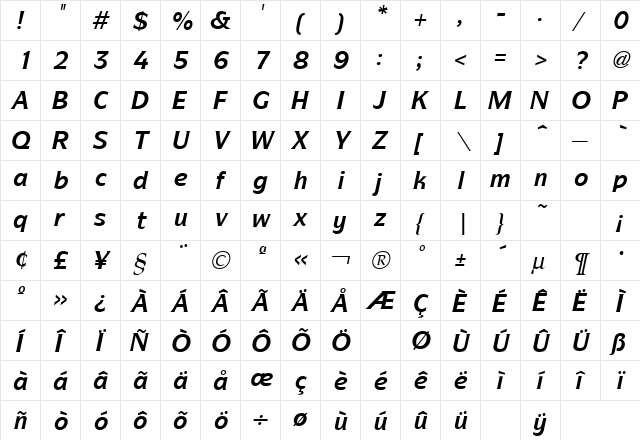
Symbol ITC Bold Italic
Design Context for Symbol ITC Typeface
Symbol ITC is a composed and adaptable typeface that performs quietly and consistently across a wide range of design contexts. The dynamic lean of this cut emphasises speed and emphasis in any layout. The heavy weight commands attention and anchors typographic hierarchies.
Pro Tip: Use Symbol ITC for emphasis, pull quotes, and subheadings where its slanted energy can add rhythm to the layout.